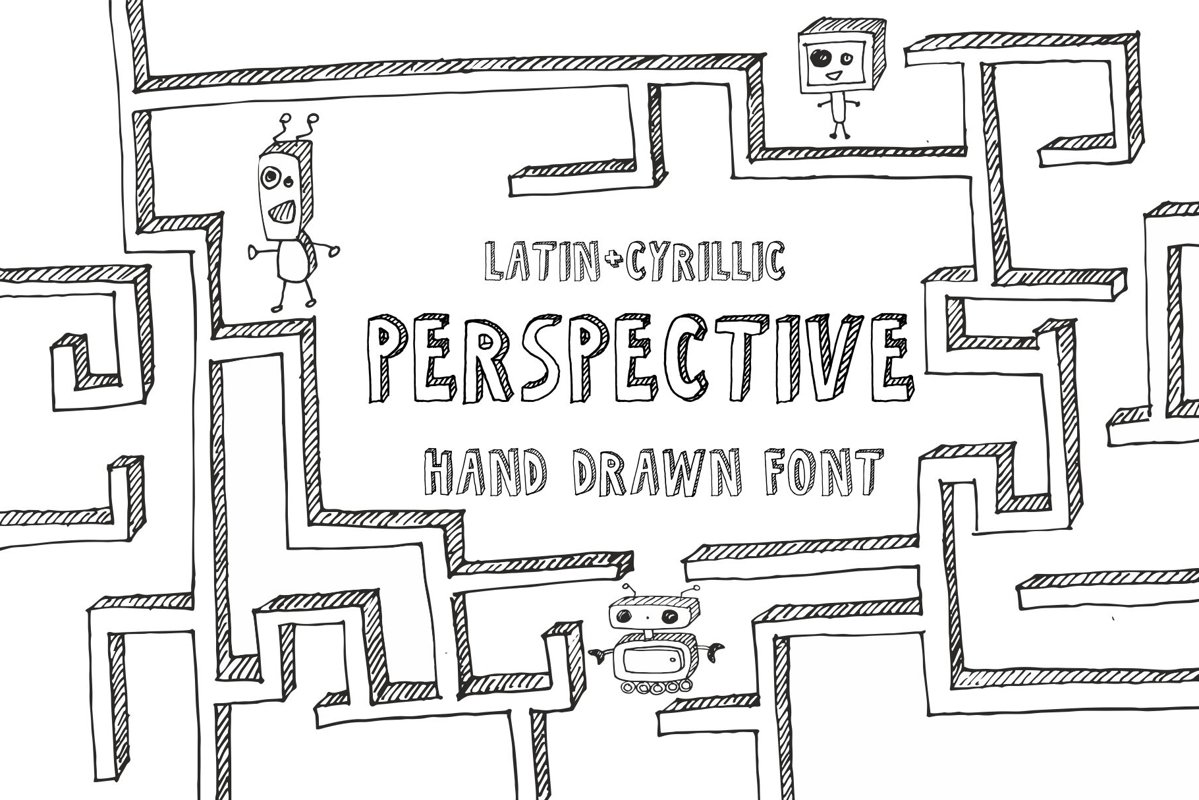
Perspective Font
Perspective
I'm glad to present you my new hand drawn font – PERSPECTIVE with latin and cyrillic letters! PERSPECTIVE font contains latin and cyrillic letter sets, numerals and punctuation. This font work nicely for all sorts of things including t-shirt design, typographic art, social media images and so much more!PERSPECTIVE font zip. folder include:
Font features: Standard characters A-Z, 0-9, and punctuation for the Latin Basic and Western European set, Cyrillic А-Я set. Enjoy!